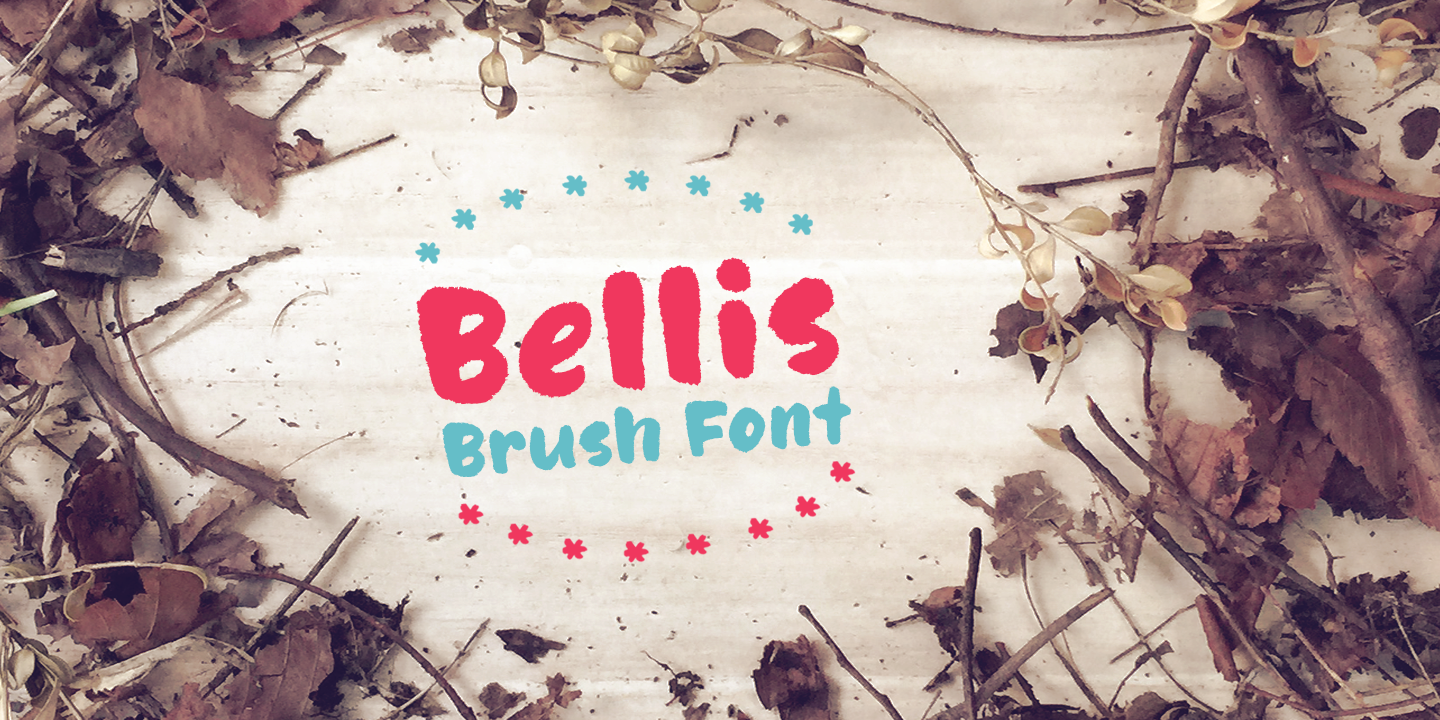
The Bellis Font is perfect for botanical garden signage, floral design studios, natural cosmetics branding, organic flower shops, spring wedding invitations, nature photography portfolios, herbal tea packaging, and delicate beauty product labels. This graceful typeface works beautifully in applications where natural beauty and floral elegance need to be emphasized, making it perfect for brands that want to communicate gentle sophistication and organic charm through naturally inspired, flower-themed typography.
What makes Bellis Font exciting is its delicate floral character and natural grace that captures the essence of blooming flowers and botanical beauty. The font's gentle letterforms and flower-inspired design create an atmosphere of natural elegance and organic sophistication, making it ideal for brands that want to evoke the freshness of spring gardens and the timeless appeal of floral artistry. Its botanical presence ensures that every application feels like a blooming meadow with genuine natural authenticity and organic charm.
The Bellis Font family typically includes light, regular, and decorative weights, often featuring floral ornaments, botanical elements, and nature-inspired symbols that enhance its organic appeal. Many versions include daisy motifs, petal decorations, and specialized characters that provide designers with comprehensive tools for creating authentic botanical design projects with genuine floral sophistication and natural elegance.
For designers working on projects that require botanical authenticity and natural credibility, Bellis Font Free Download provides exceptional floral appeal. Its ability to instantly communicate natural beauty and organic elegance makes it an invaluable choice for botanical brands, wellness companies, and any project requiring typography that embodies the delicate grace of flower petals, the freshness of natural gardens, and the timeless appeal of botanical artistry and organic natural beauty.